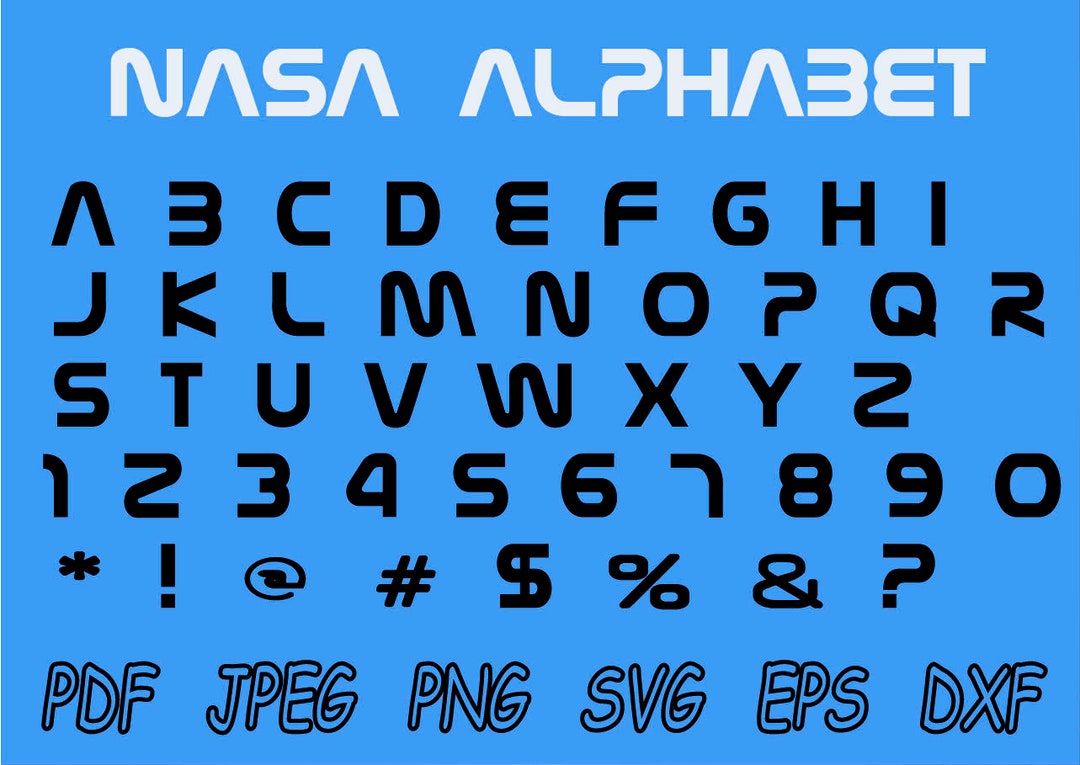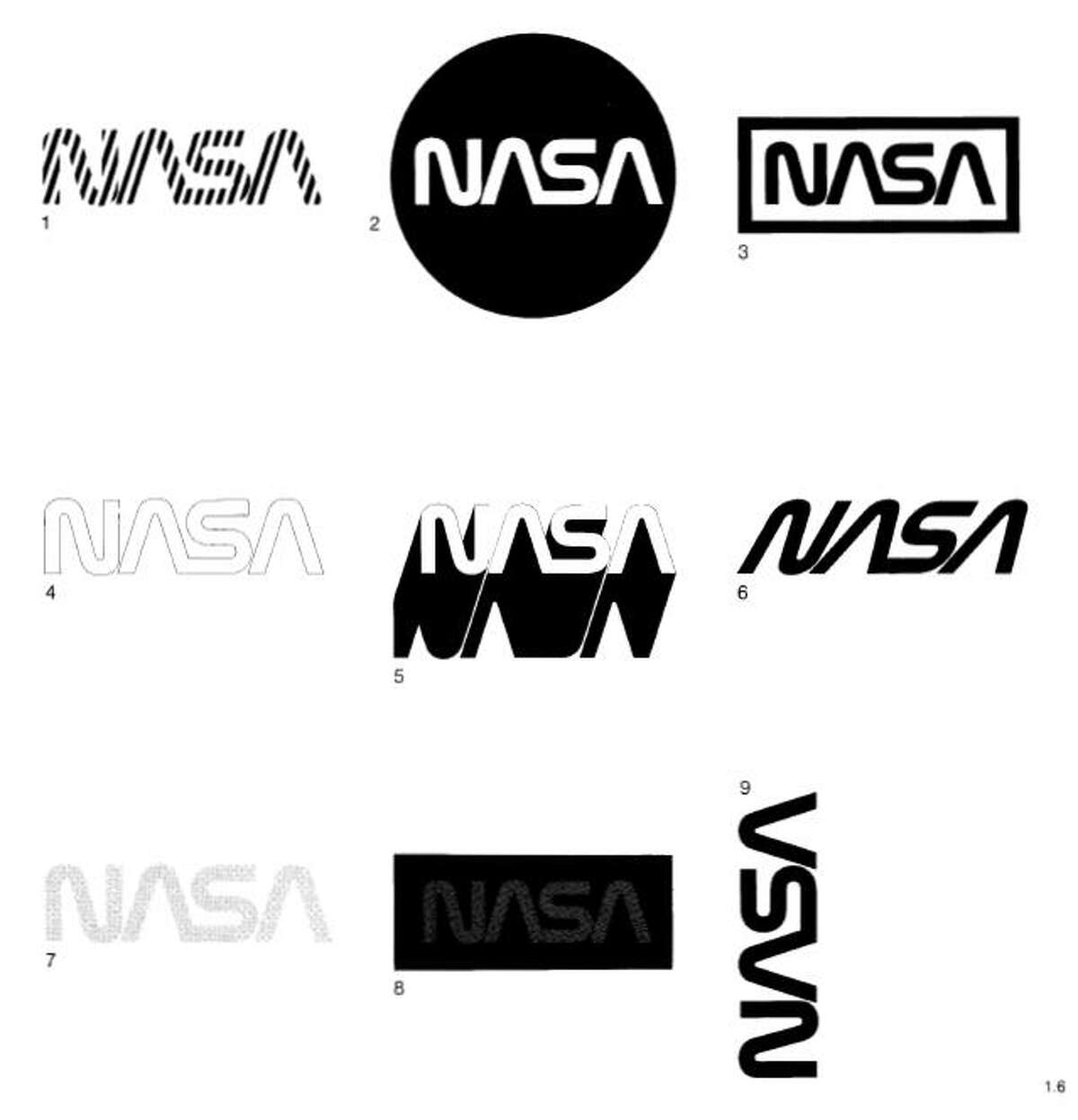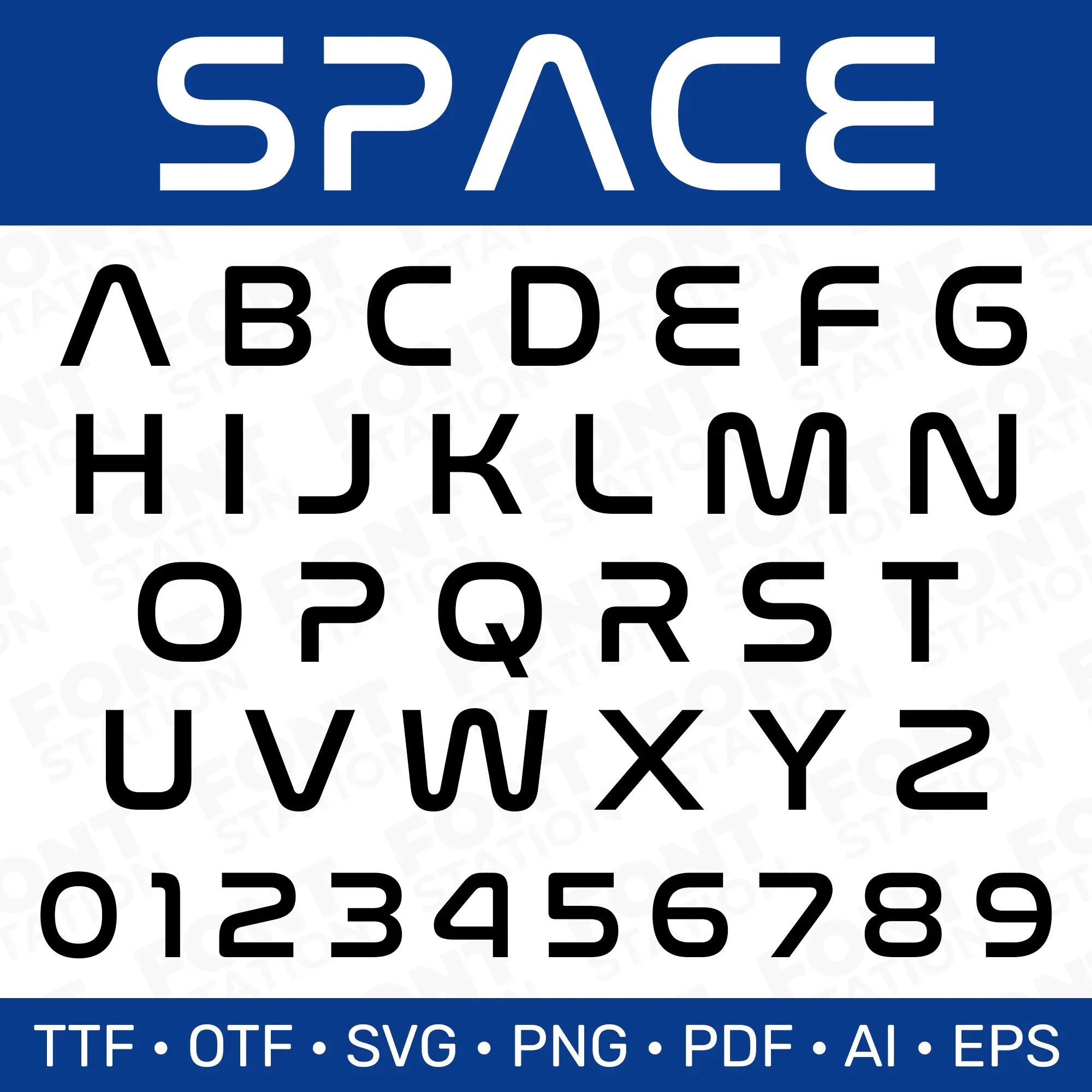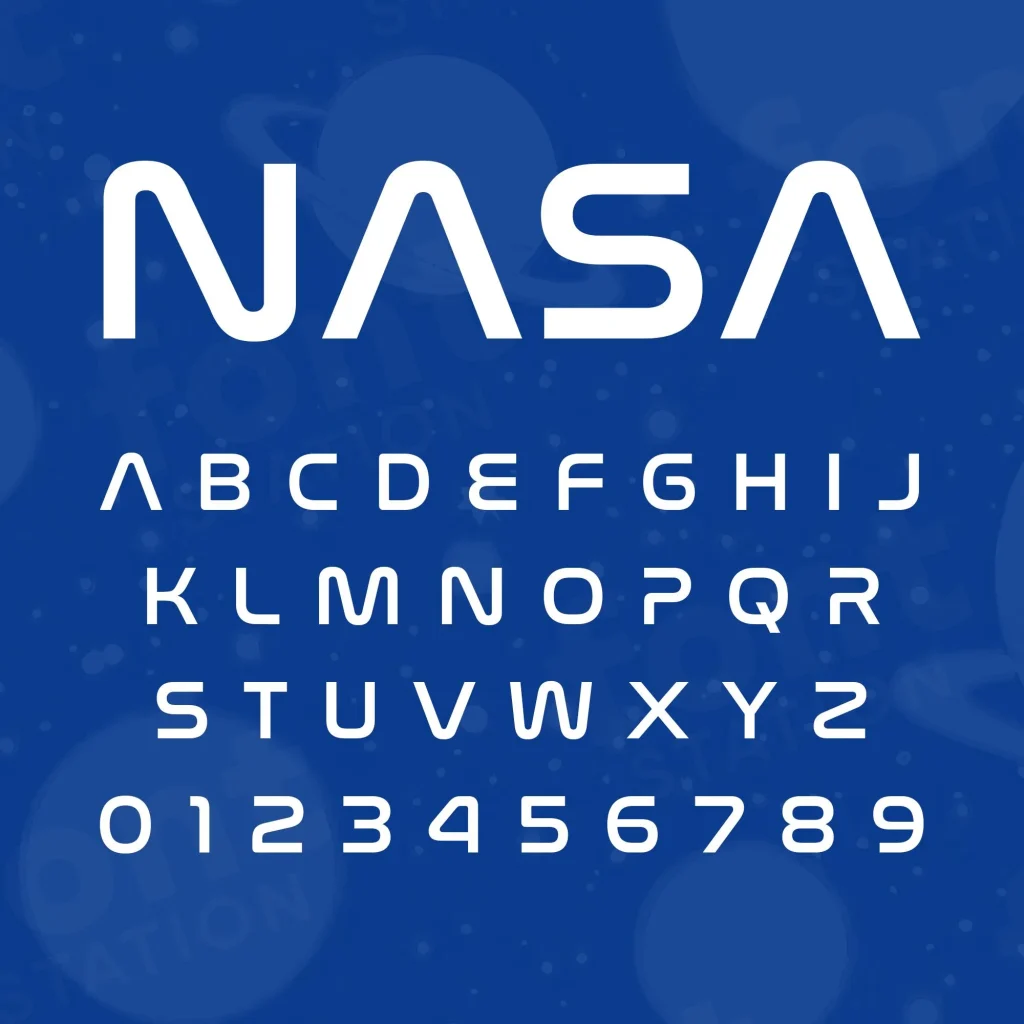
What Font Does Nasa Use . Text that uses fonts or typographic styles resembling the nasa insignia typeface or the nasa logotype (worm) is not permitted. Find recommended font pairings, typesetting rules,. Learn about the fonts used in the nasa logo and create your own text graphics with them online. When you look at nasa’s branding, the first thing that strikes you is its use of typography. Learn how nasa researcher asaf degani developed a set of guidelines for legible and effective font design in 1992. Learn how to use helvetica, source sans pro, and merriweather fonts for nasa websites. Nasalization is an ultramodern sans serif typeface inspired by the nasa logo from 1975. The primary typeface that nasa. Download free fonts for local use or embed the.
Find recommended font pairings, typesetting rules,. Learn about the fonts used in the nasa logo and create your own text graphics with them online. Learn how to use helvetica, source sans pro, and merriweather fonts for nasa websites. Learn how nasa researcher asaf degani developed a set of guidelines for legible and effective font design in 1992. Nasalization is an ultramodern sans serif typeface inspired by the nasa logo from 1975. The primary typeface that nasa. When you look at nasa’s branding, the first thing that strikes you is its use of typography. Text that uses fonts or typographic styles resembling the nasa insignia typeface or the nasa logotype (worm) is not permitted. Download free fonts for local use or embed the.
What Font Does Nasa Use Learn about the fonts used in the nasa logo and create your own text graphics with them online. Download free fonts for local use or embed the. When you look at nasa’s branding, the first thing that strikes you is its use of typography. Learn how nasa researcher asaf degani developed a set of guidelines for legible and effective font design in 1992. The primary typeface that nasa. Learn how to use helvetica, source sans pro, and merriweather fonts for nasa websites. Text that uses fonts or typographic styles resembling the nasa insignia typeface or the nasa logotype (worm) is not permitted. Find recommended font pairings, typesetting rules,. Learn about the fonts used in the nasa logo and create your own text graphics with them online. Nasalization is an ultramodern sans serif typeface inspired by the nasa logo from 1975.
What Is The NASA Font? What Font Does Nasa Use Text that uses fonts or typographic styles resembling the nasa insignia typeface or the nasa logotype (worm) is not permitted. Learn about the fonts used in the nasa logo and create your own text graphics with them online. Nasalization is an ultramodern sans serif typeface inspired by the nasa logo from 1975. When you look at nasa’s branding, the first. What Font Does Nasa Use.
Nasa Font Free Download What Font Does Nasa Use When you look at nasa’s branding, the first thing that strikes you is its use of typography. Find recommended font pairings, typesetting rules,. Learn how to use helvetica, source sans pro, and merriweather fonts for nasa websites. Download free fonts for local use or embed the. Nasalization is an ultramodern sans serif typeface inspired by the nasa logo from 1975.. What Font Does Nasa Use.
NASA Font Logo FREE Download FontSwan What Font Does Nasa Use Nasalization is an ultramodern sans serif typeface inspired by the nasa logo from 1975. When you look at nasa’s branding, the first thing that strikes you is its use of typography. Find recommended font pairings, typesetting rules,. Learn about the fonts used in the nasa logo and create your own text graphics with them online. The primary typeface that nasa.. What Font Does Nasa Use.
Nasa free font What Font Does Nasa Use Find recommended font pairings, typesetting rules,. The primary typeface that nasa. When you look at nasa’s branding, the first thing that strikes you is its use of typography. Nasalization is an ultramodern sans serif typeface inspired by the nasa logo from 1975. Learn how nasa researcher asaf degani developed a set of guidelines for legible and effective font design in. What Font Does Nasa Use.
Nasa New Typeface What Font Does Nasa Use Learn how nasa researcher asaf degani developed a set of guidelines for legible and effective font design in 1992. Learn about the fonts used in the nasa logo and create your own text graphics with them online. Find recommended font pairings, typesetting rules,. Text that uses fonts or typographic styles resembling the nasa insignia typeface or the nasa logotype (worm). What Font Does Nasa Use.
NASA Dings Font Download What Font Does Nasa Use The primary typeface that nasa. Learn about the fonts used in the nasa logo and create your own text graphics with them online. When you look at nasa’s branding, the first thing that strikes you is its use of typography. Learn how nasa researcher asaf degani developed a set of guidelines for legible and effective font design in 1992. Find. What Font Does Nasa Use.
Nasa Font What Font Does Nasa Use Find recommended font pairings, typesetting rules,. Learn how to use helvetica, source sans pro, and merriweather fonts for nasa websites. When you look at nasa’s branding, the first thing that strikes you is its use of typography. Nasalization is an ultramodern sans serif typeface inspired by the nasa logo from 1975. Download free fonts for local use or embed the.. What Font Does Nasa Use.
NASA Alphabet SVG, Svg Party Style Font, Svg Letters PNG, Customize What Font Does Nasa Use Learn how nasa researcher asaf degani developed a set of guidelines for legible and effective font design in 1992. Download free fonts for local use or embed the. The primary typeface that nasa. Find recommended font pairings, typesetting rules,. Learn about the fonts used in the nasa logo and create your own text graphics with them online. Text that uses. What Font Does Nasa Use.
Pin en Space Party What Font Does Nasa Use Download free fonts for local use or embed the. Learn how to use helvetica, source sans pro, and merriweather fonts for nasa websites. Nasalization is an ultramodern sans serif typeface inspired by the nasa logo from 1975. Learn about the fonts used in the nasa logo and create your own text graphics with them online. The primary typeface that nasa.. What Font Does Nasa Use.